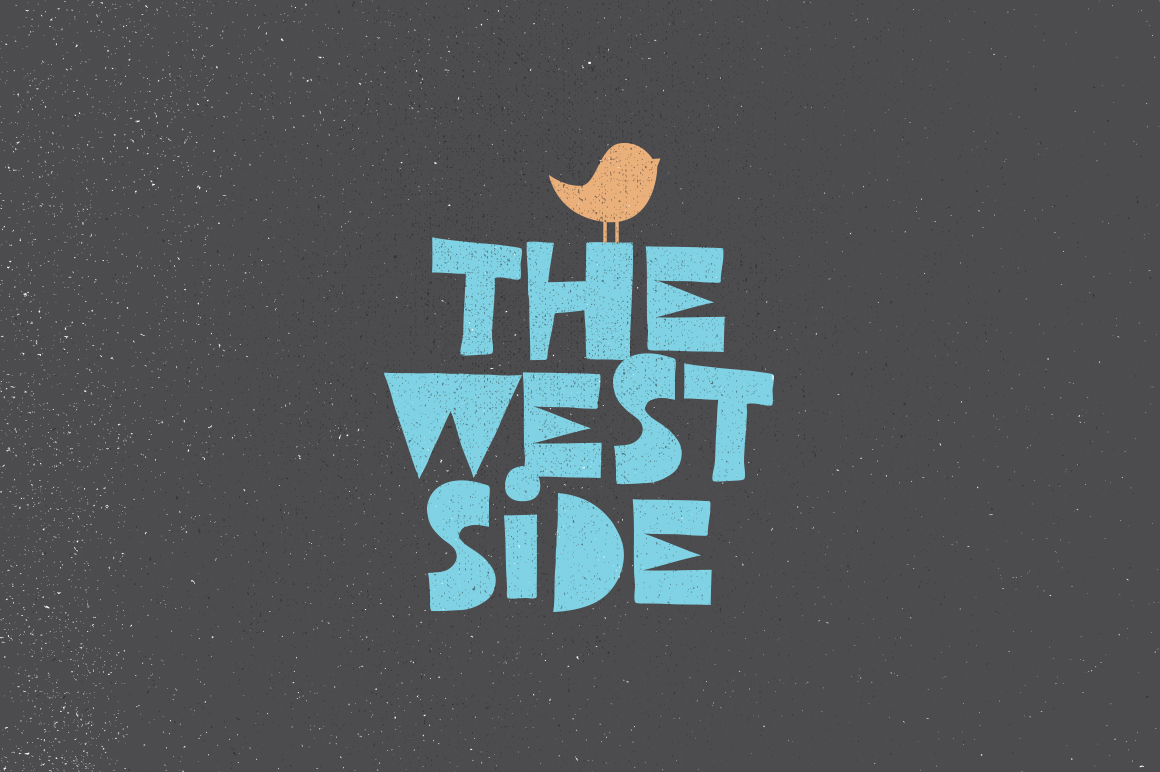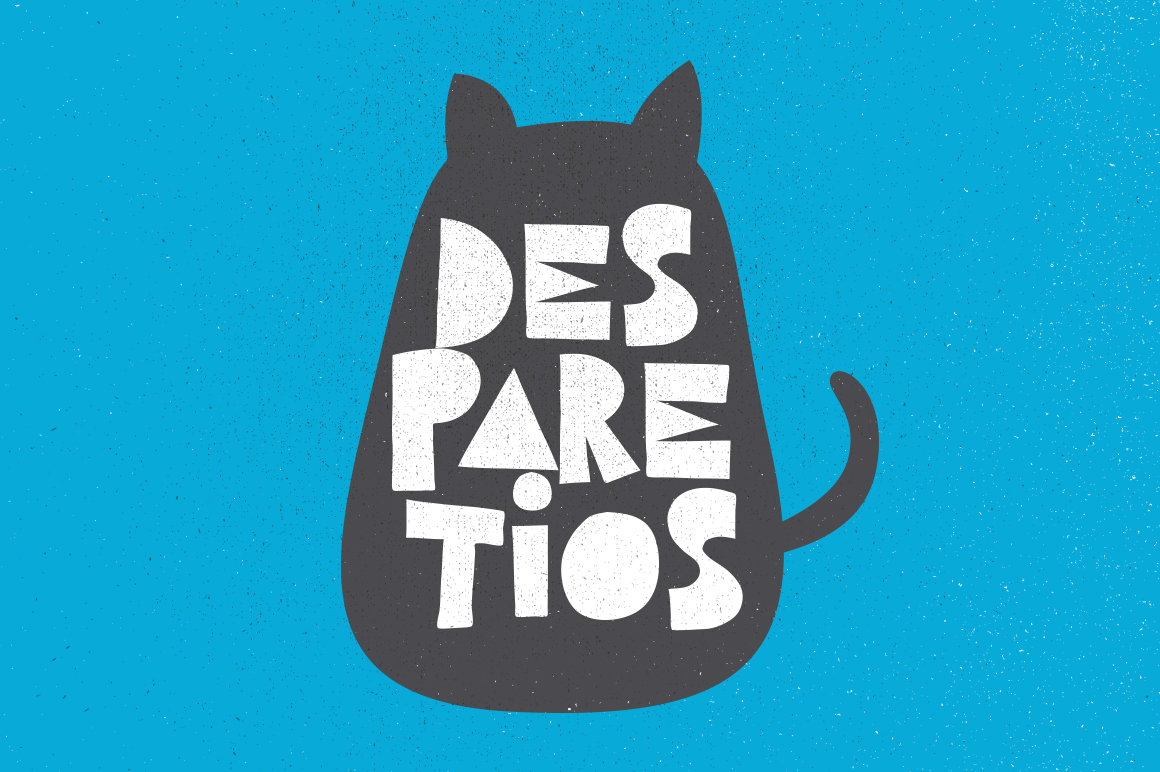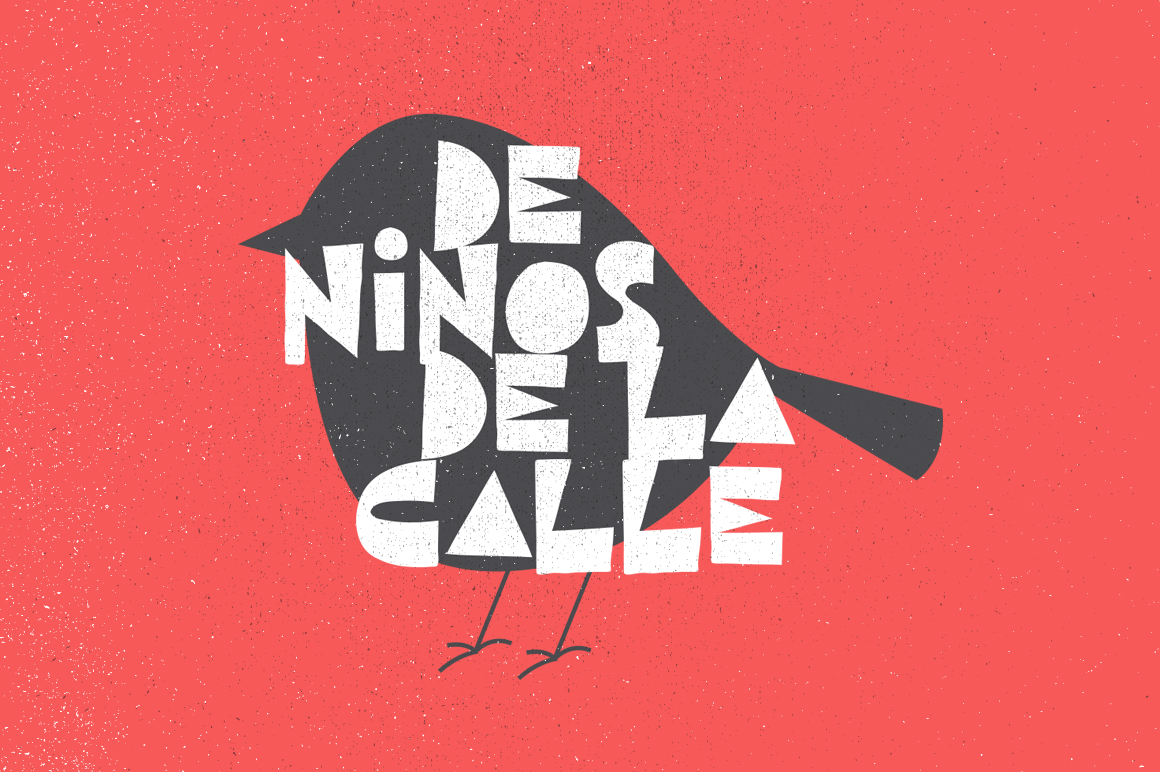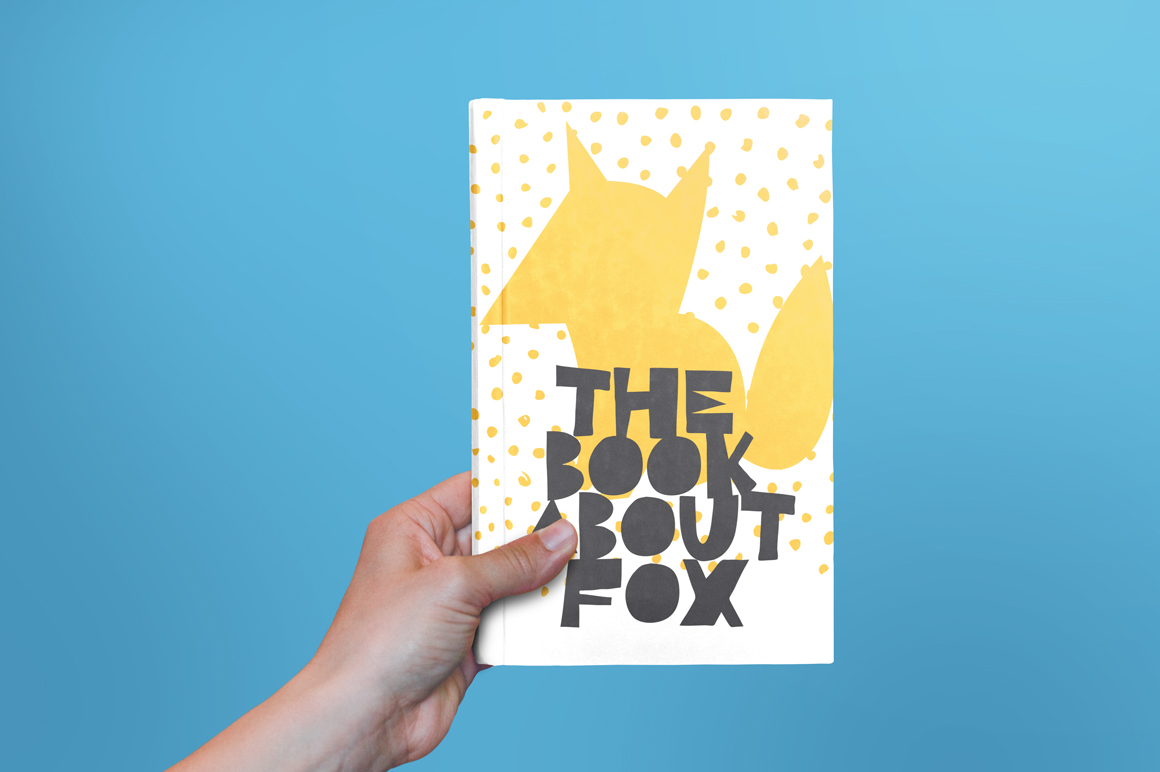
West Side Font was designed by Artimasa Studio, inspired by 1980’s handmade poster designs and illustrations. West Side is a block-styled handcrafted typeface that can be used to quickly give a retro feeling to your projects. Free for personal or commercial projects! You can even use West Side to create products offered for sale such as t-shirts or greeting cards.